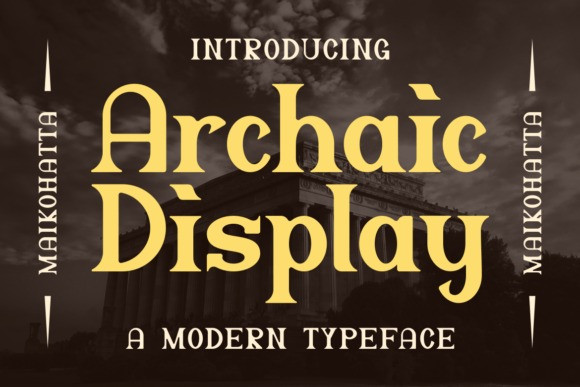
Archaic Display Font
Archaic Display Font is an incredibly unique, stylish, and versatile display font. Add it confidently to your creative projects and you will love the results!